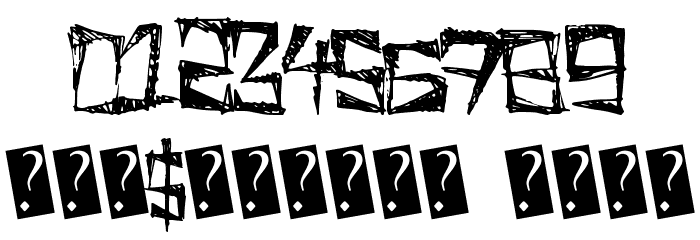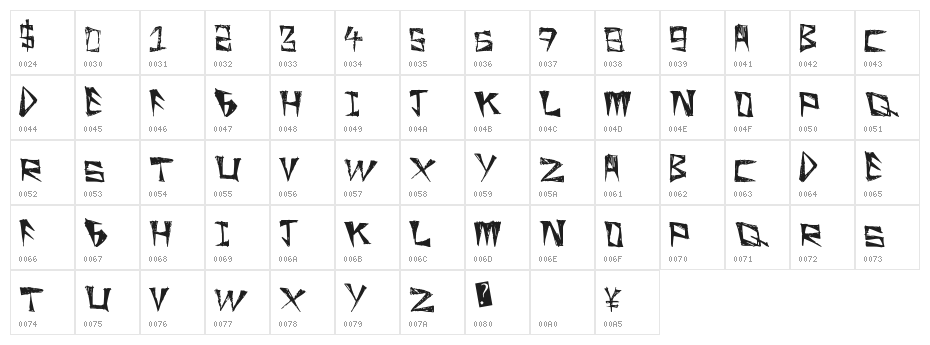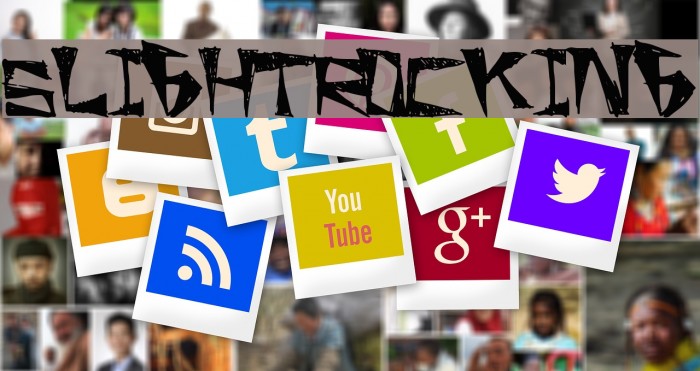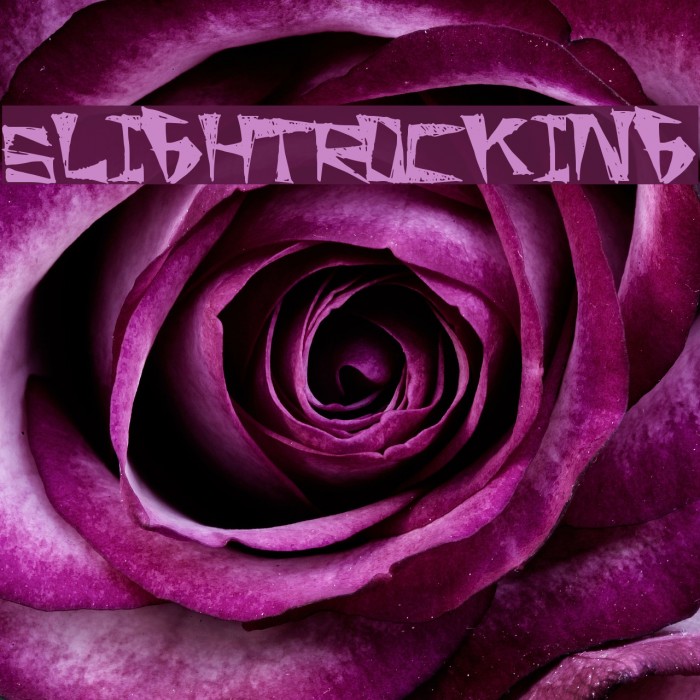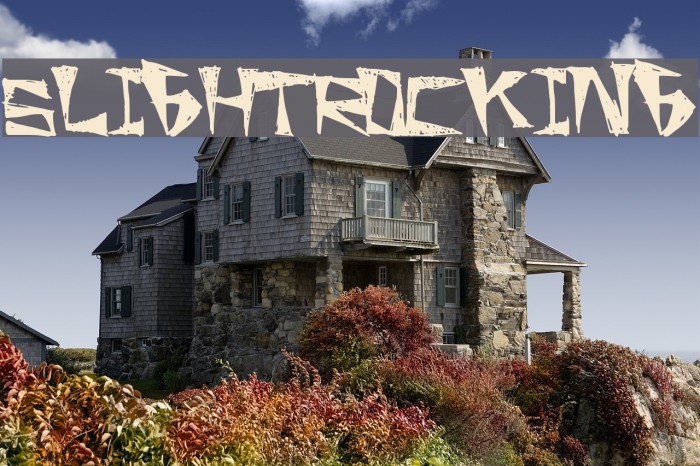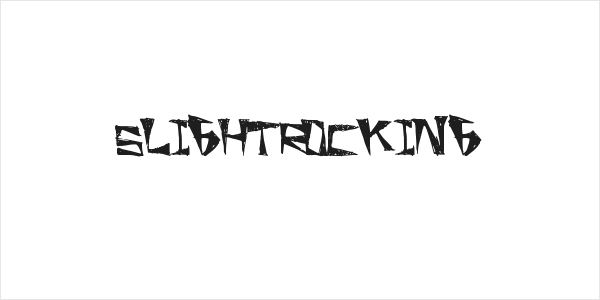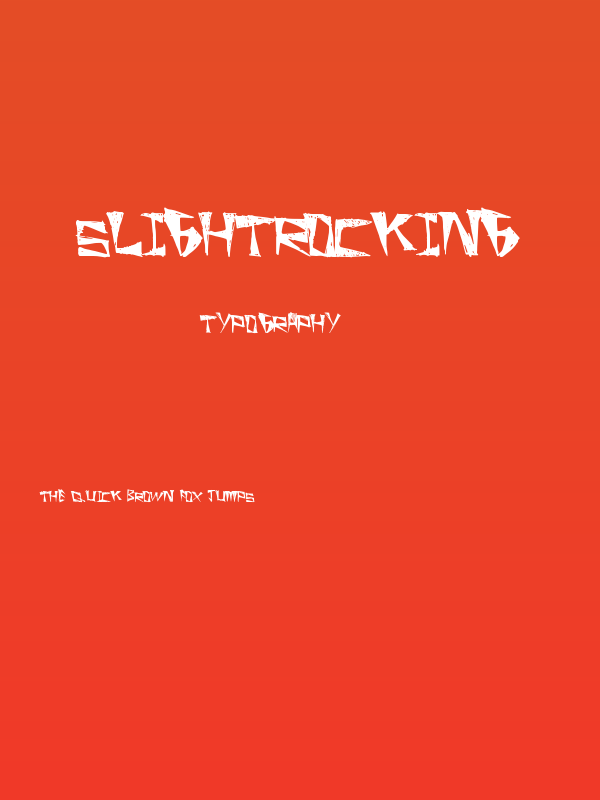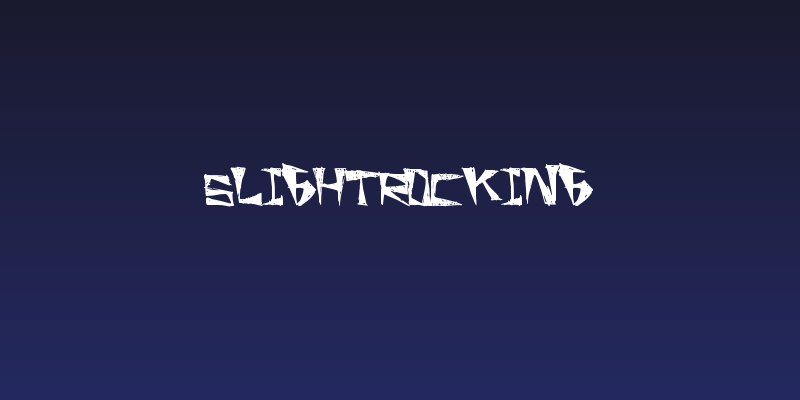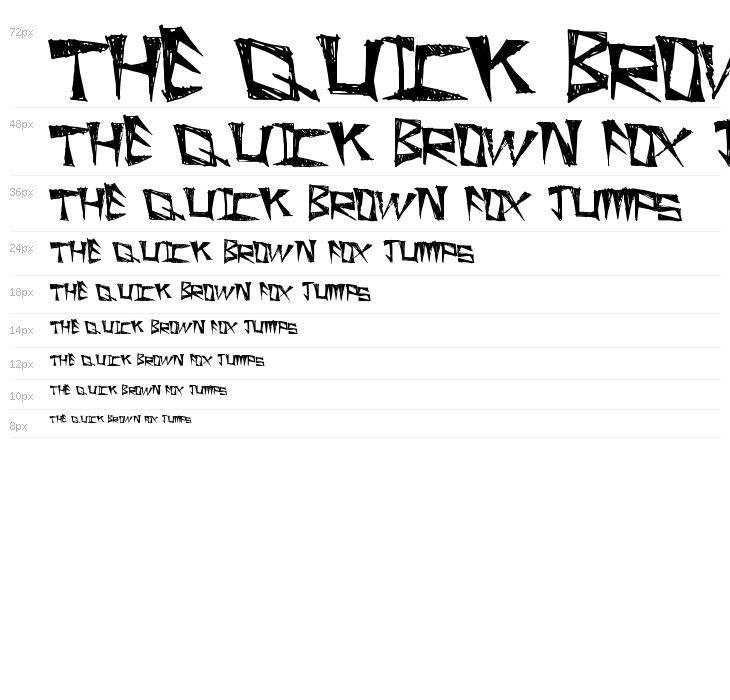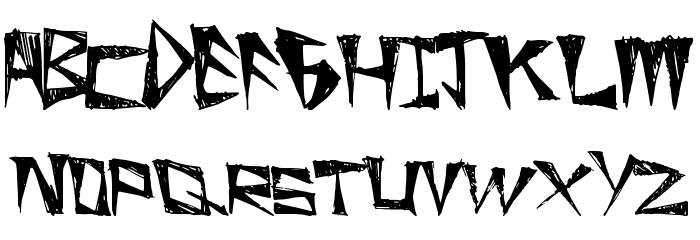
SlightRocking Font
SlightRocking Description
This font exhibits a bold and edgy style, characterized by its jagged, angular strokes and rough texture. The letters appear as if they have been hastily sketched with a sharp instrument, giving them a raw, rebellious feel. The uppercase and lowercase letters maintain a consistent design, with exaggerated angles and uneven lines that create a sense of movement and energy. Numbers and special characters follow the same aesthetic, ensuring a cohesive look across all elements. The font's unique appearance makes it stand out, ideal for projects that require a strong, unconventional visual impact.
| Overall Style | Modern, Edgy |
| Use Case | Logos, Posters, Album Covers |
| Proposed Projects | Perfect for album covers, graffiti art, skateboarding brands, and edgy posters. |